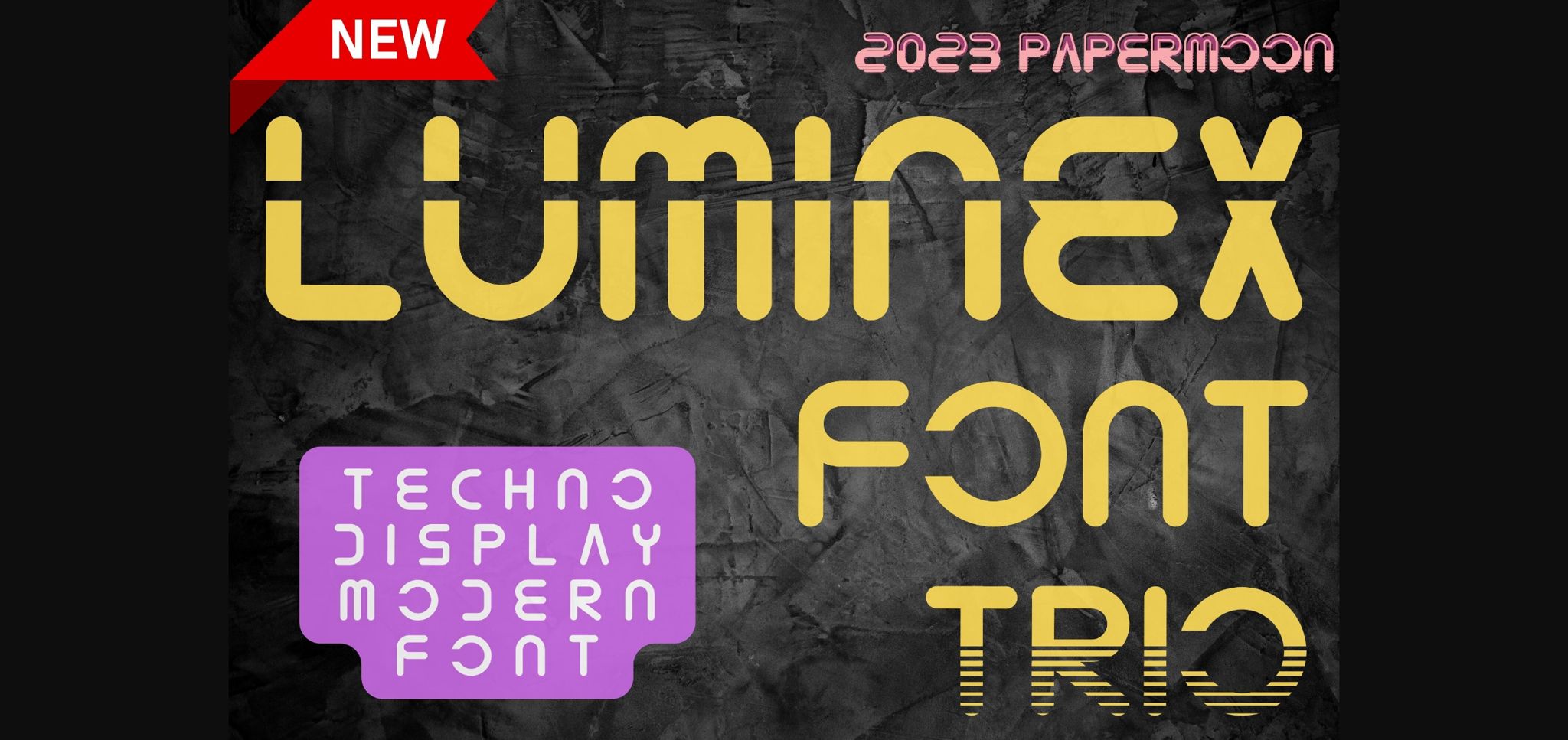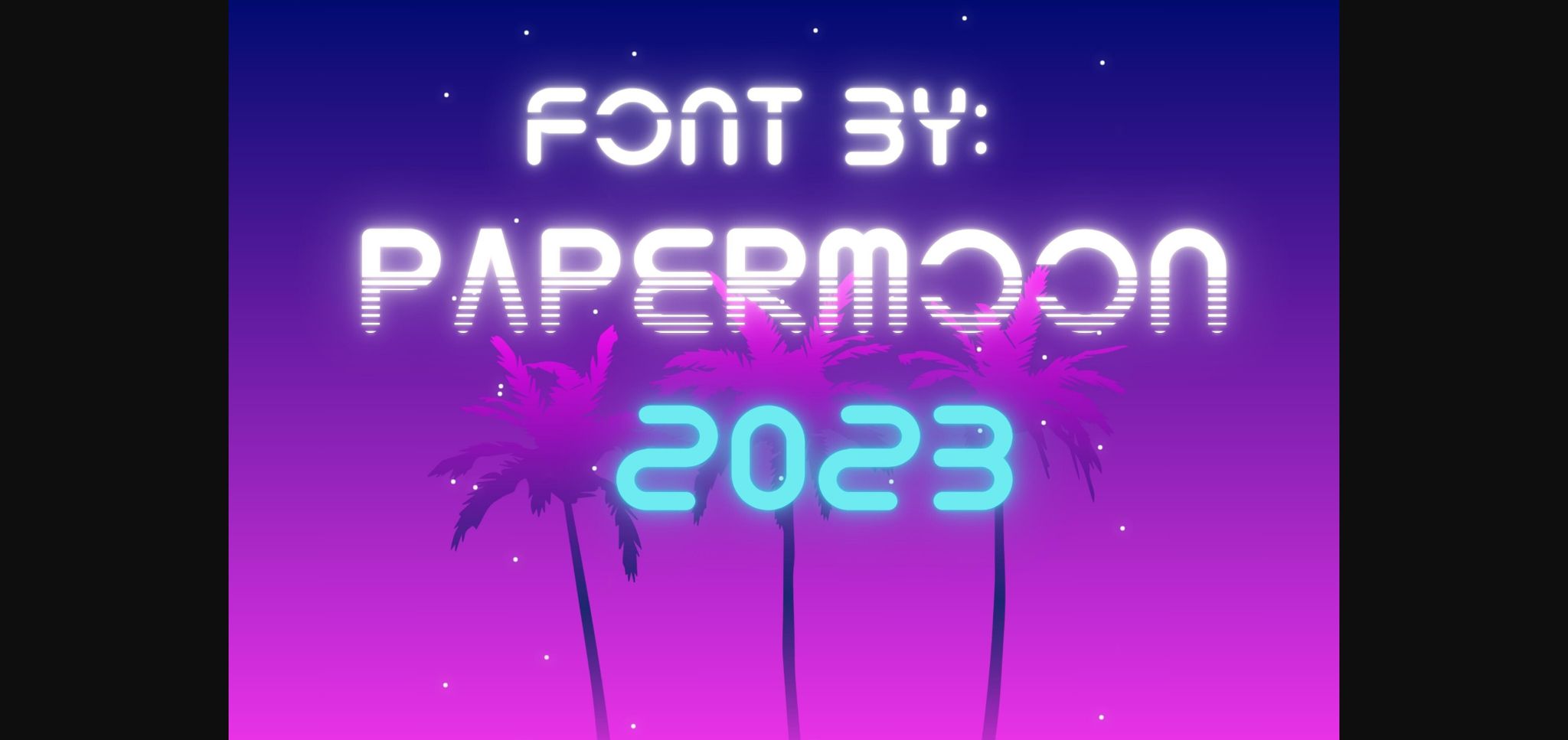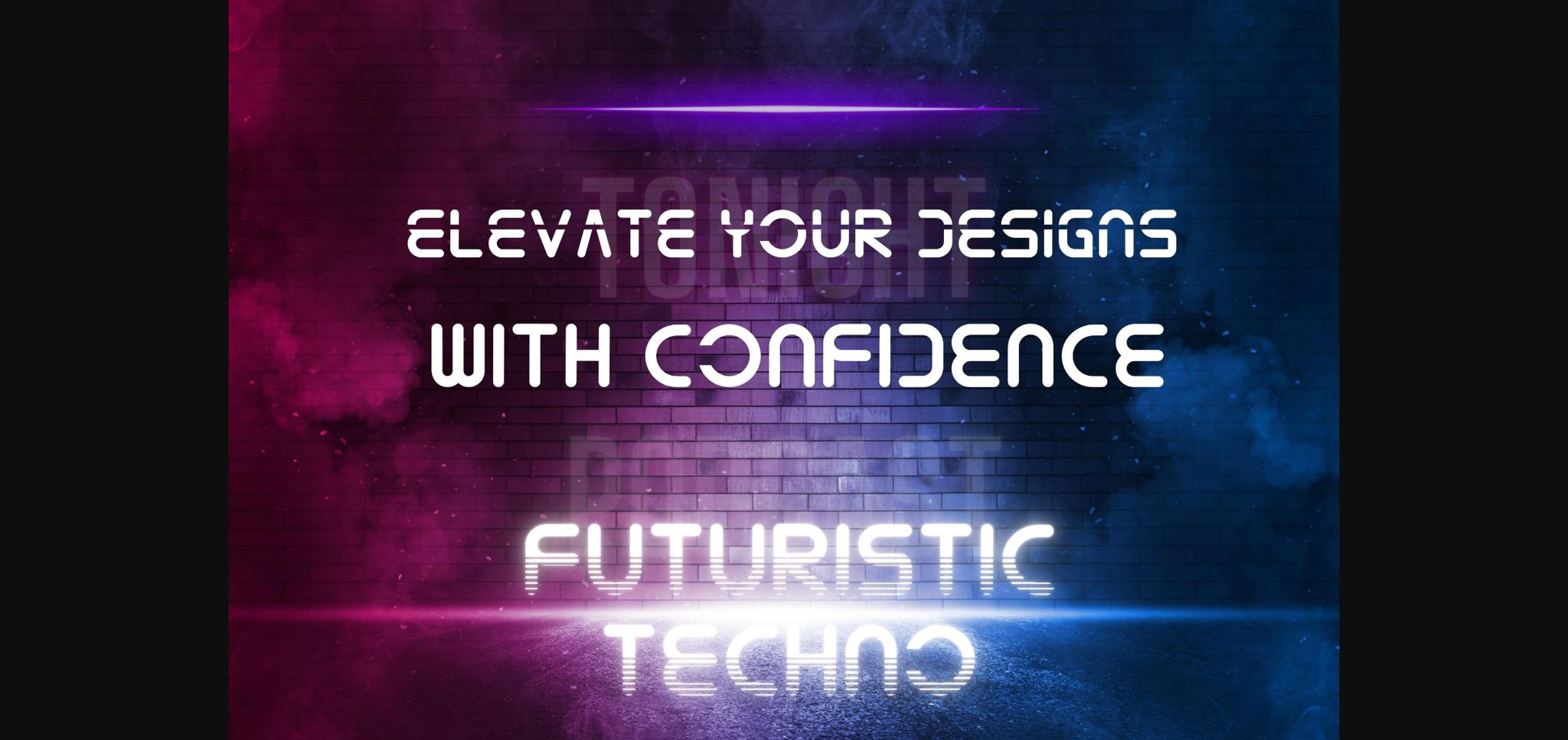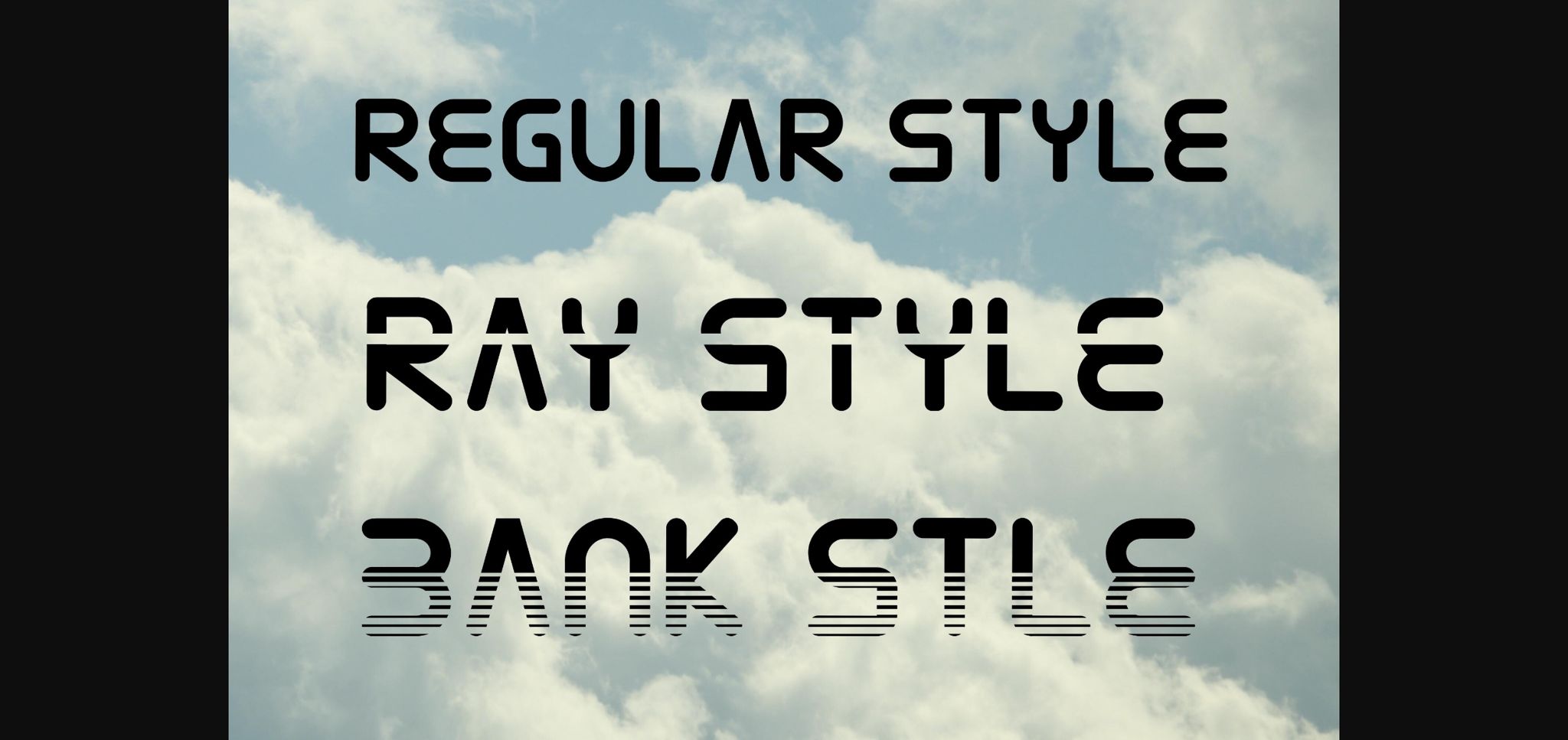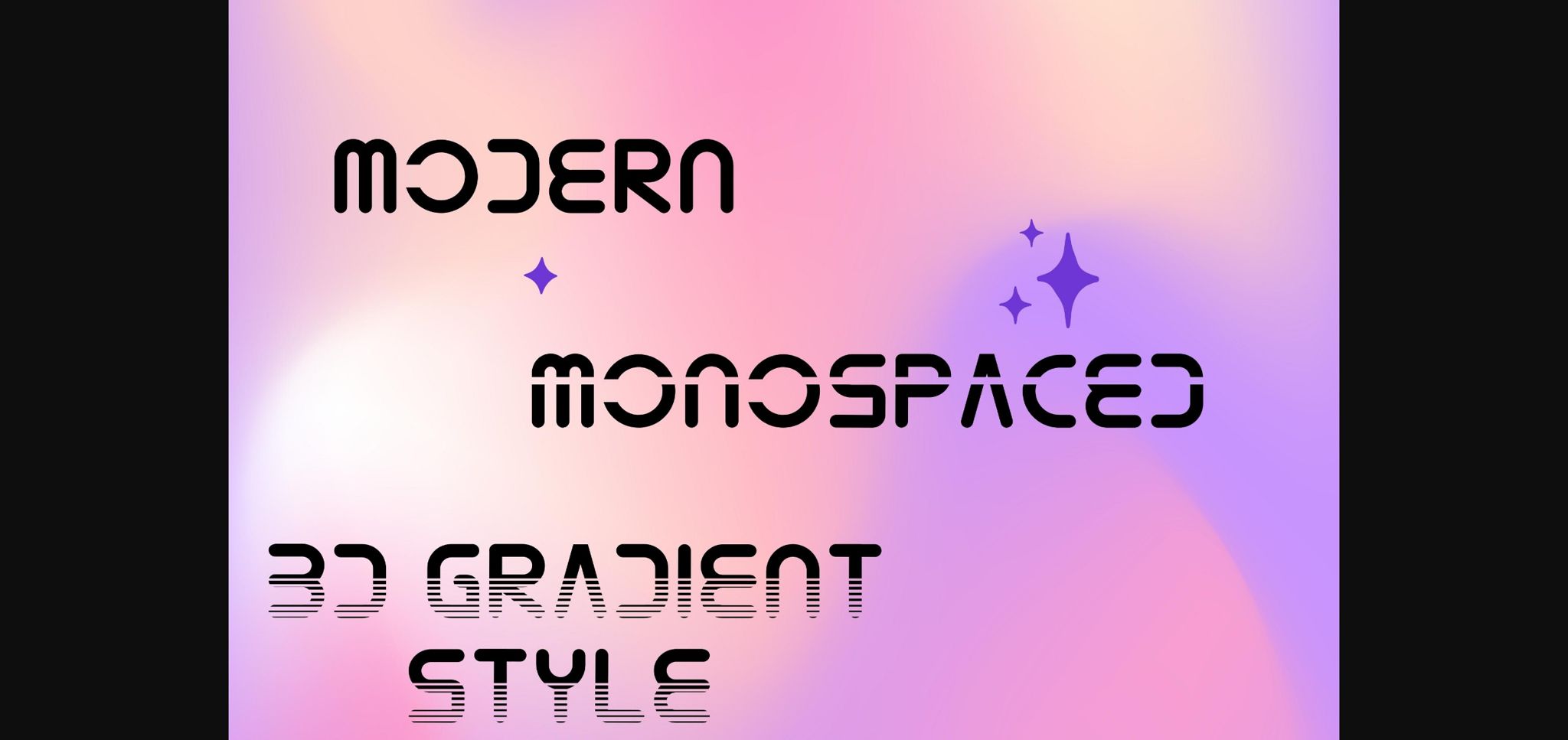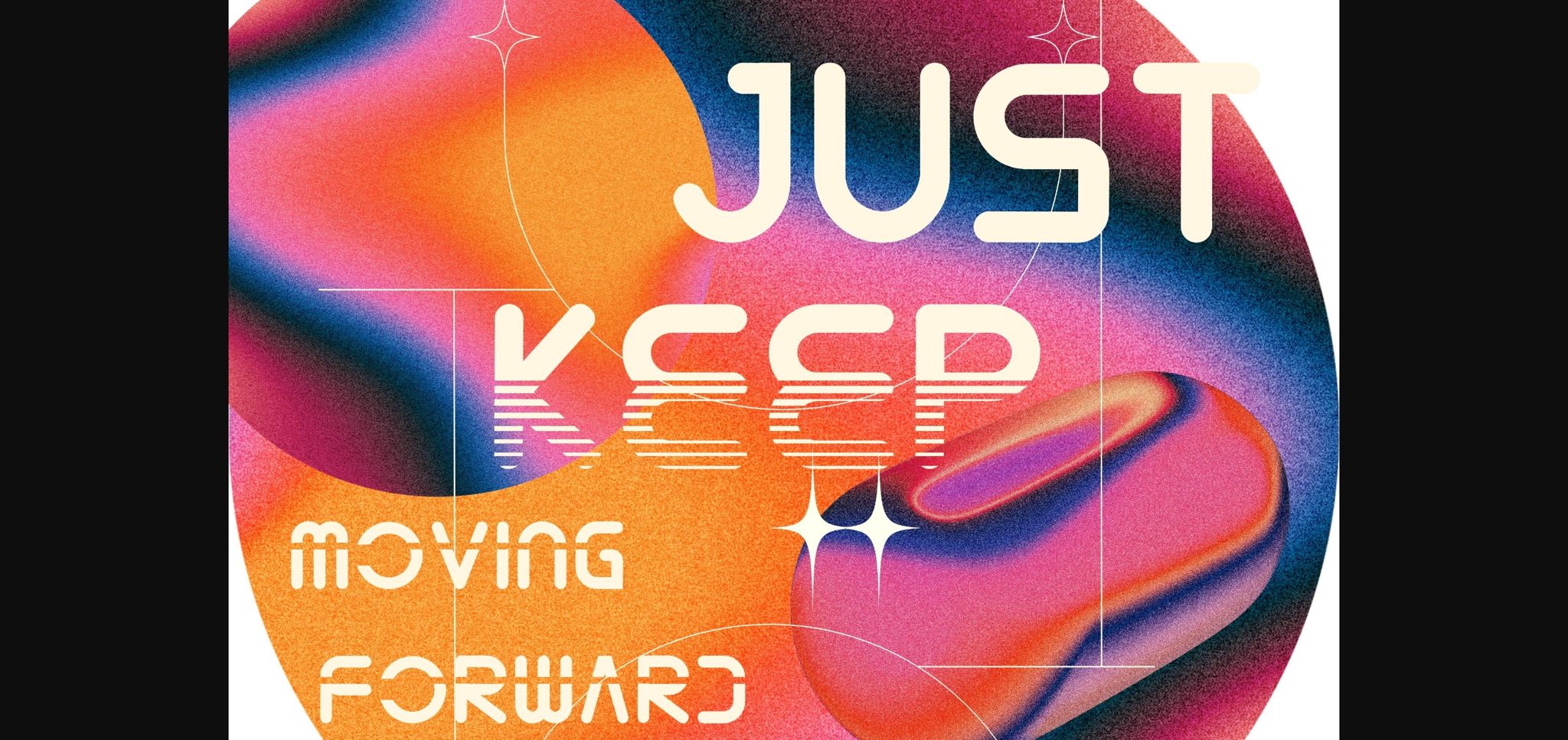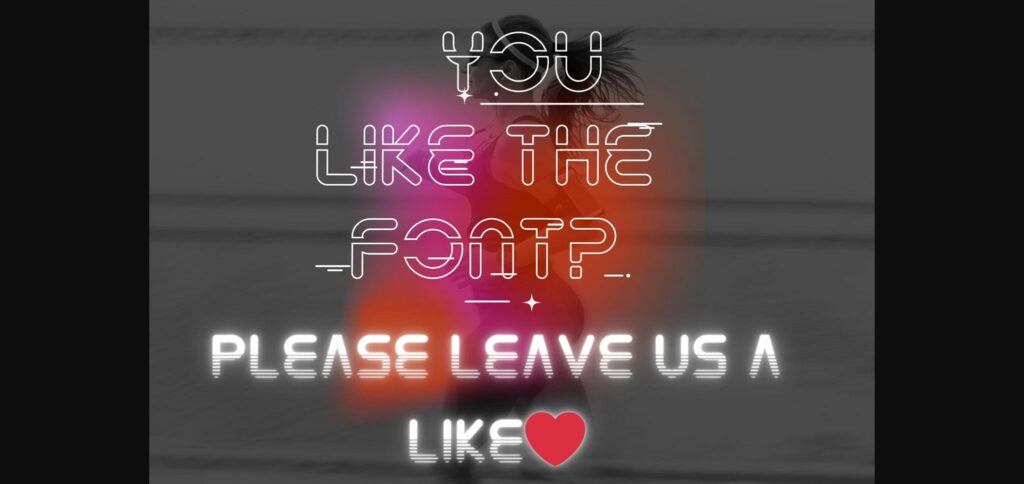
Luminex Trio Modern Font
About Luminex Trio Modern Font
Luminex is a cutting-edge, decorative, and futuristic techno font that’s primed for modern design endeavors. This versatile typeface offers three distinct styles: Modern, Monospaced Laser, and Gradient 3D, catering to a variety of creative applications. Furthermore, it boasts full multilingual character support, ensuring accessibility across diverse languages.